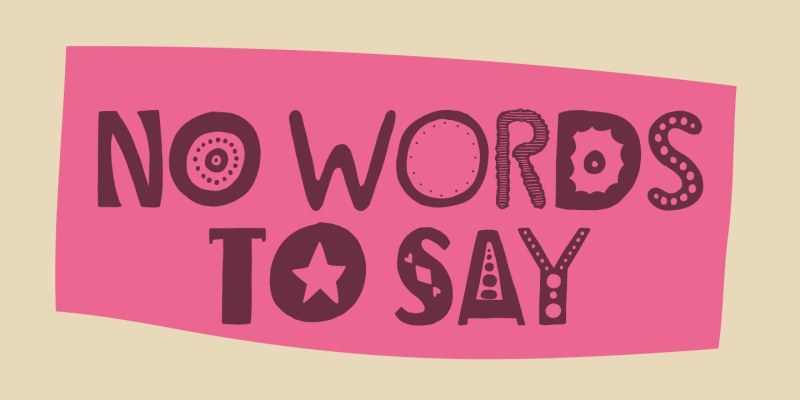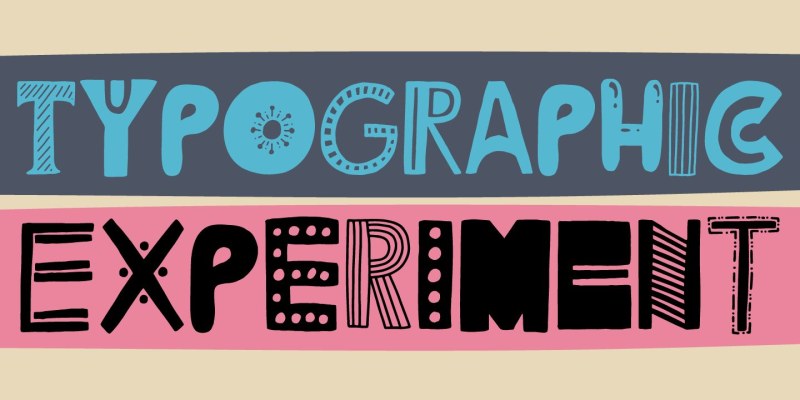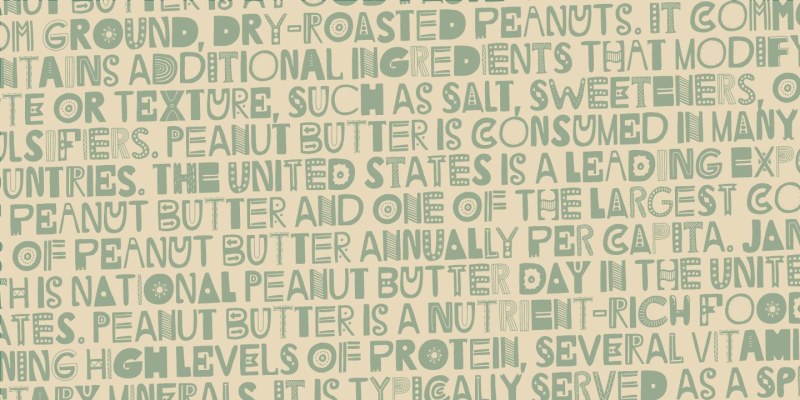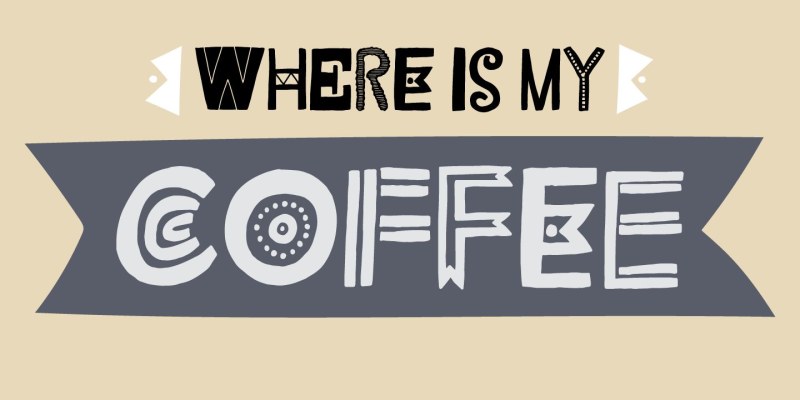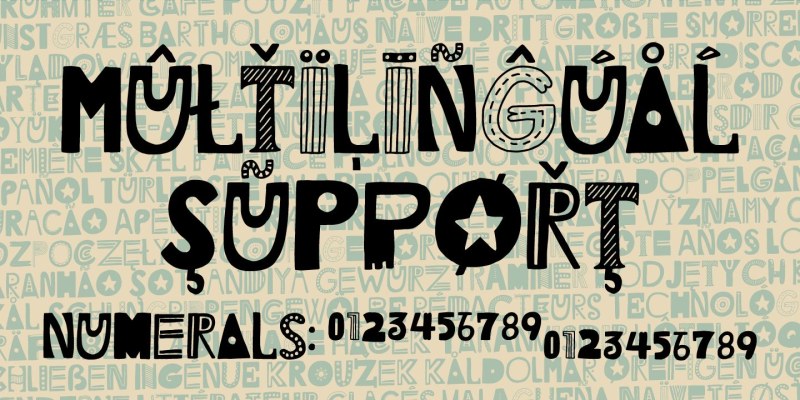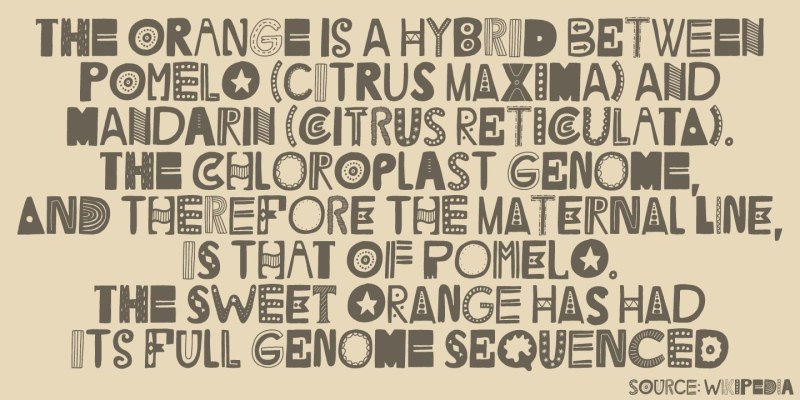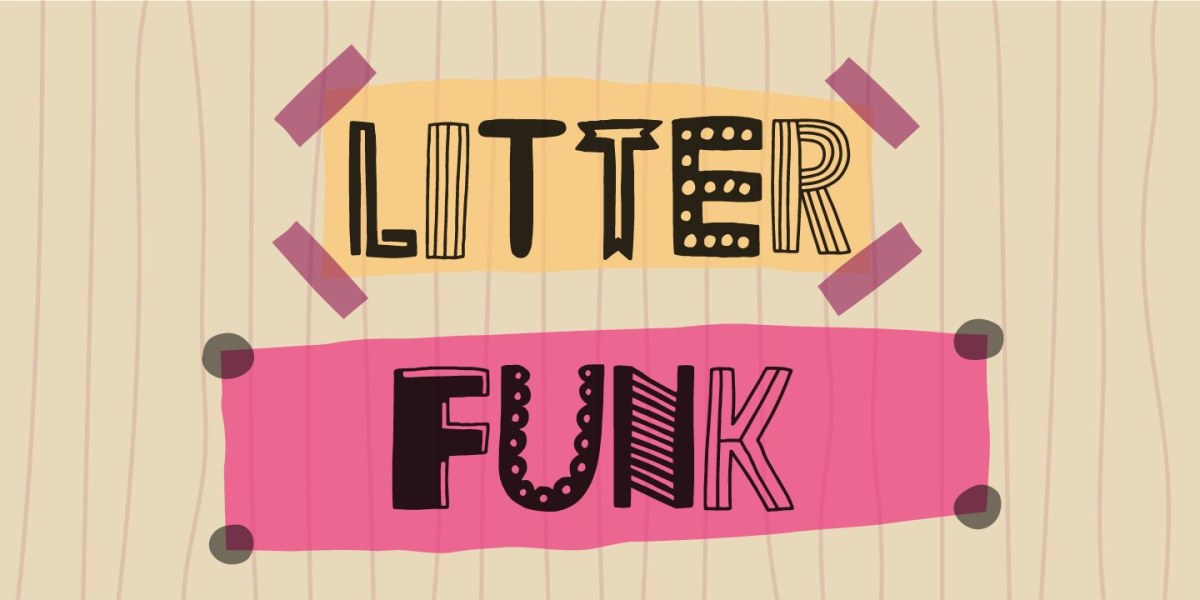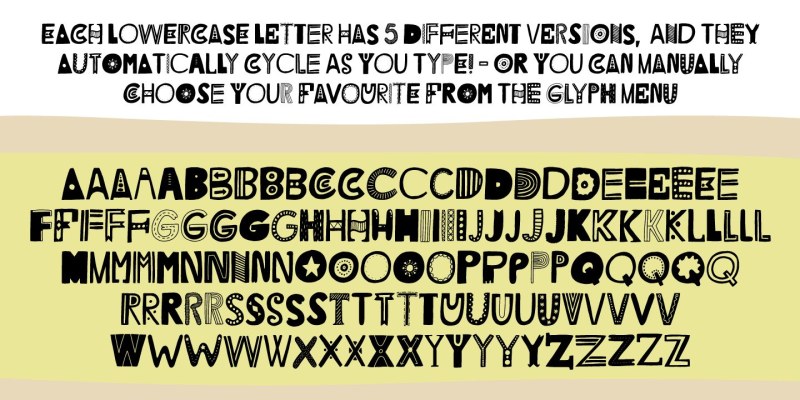
Litter Funk Font
You may already have guessed it…Litter Funk is experimental typography. Some letters are fat blocks, others have stars, stripes or dots, some are funny and funky while o…
You may already have guessed it…Litter Funk is experimental typography. Some letters are fat blocks, others have stars, stripes or dots, some are funny and funky while others are plain weird – but all in all, they leave a really nice confusing effect when used. Due to the contextual alternates, each letter comes in 5 different versions, and automatically cycle as you type.
Where Litter Funk Font works best
Litter Funk Font is built for size: event posters, hero headlines and billboard-style layouts.
High contrast display type like Litter Funk Font reads instantly in thumbnails and motion graphics.
What is Litter Funk Font good for?